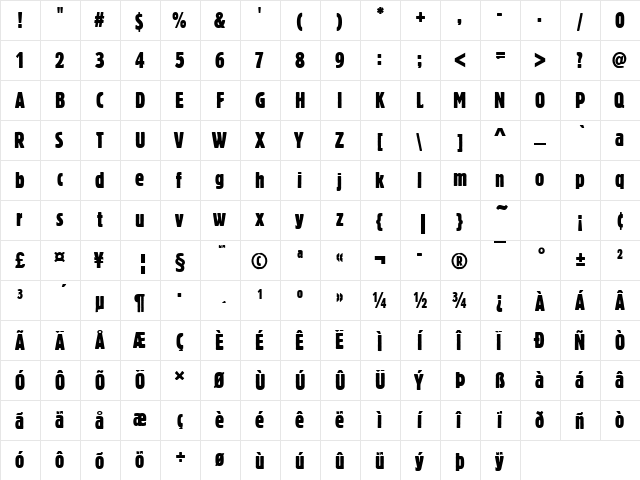
BlockDRegExtCon Regular Font Preview
BlockDRegExtCon Regular
Design Context for BlockDRegExtCon Typeface
BlockDRegExtCon is a composed and adaptable typeface that performs quietly and consistently across a wide range of design contexts.
Pro Tip: Use BlockDRegExtCon in both headline and body roles to test its range before committing to a single application.